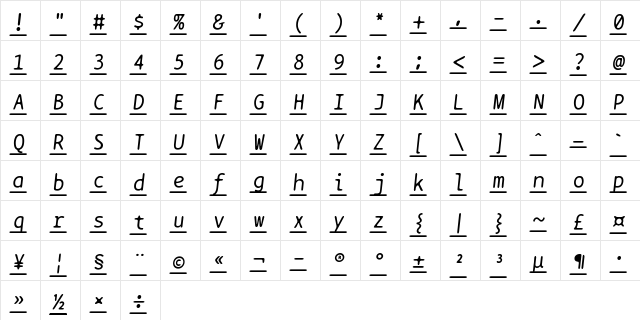
BPtypewriteUnderscored Italic
| Foundry | George Triantafyllakos |
| Designer | George Triantafyllakos |
Design Context for BPtypewriteUnderscored Typeface
BPtypewriteUnderscored offers clean, dependable letterforms without strong stylistic allegiance, making it a practical choice for designers who need flexibility. The dynamic lean of this cut emphasises speed and emphasis in any layout.
Pro Tip: Use BPtypewriteUnderscored for emphasis, pull quotes, and subheadings where its slanted energy can add rhythm to the layout.